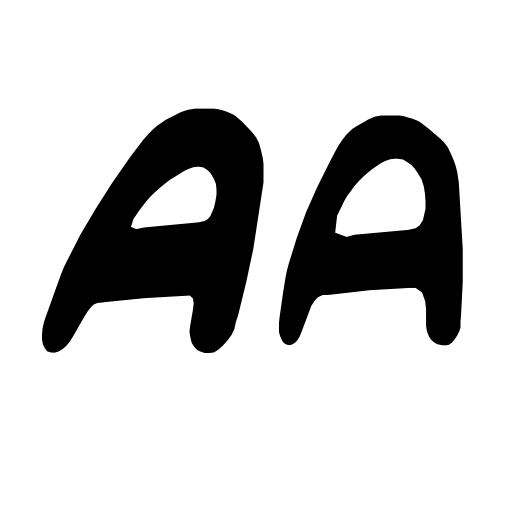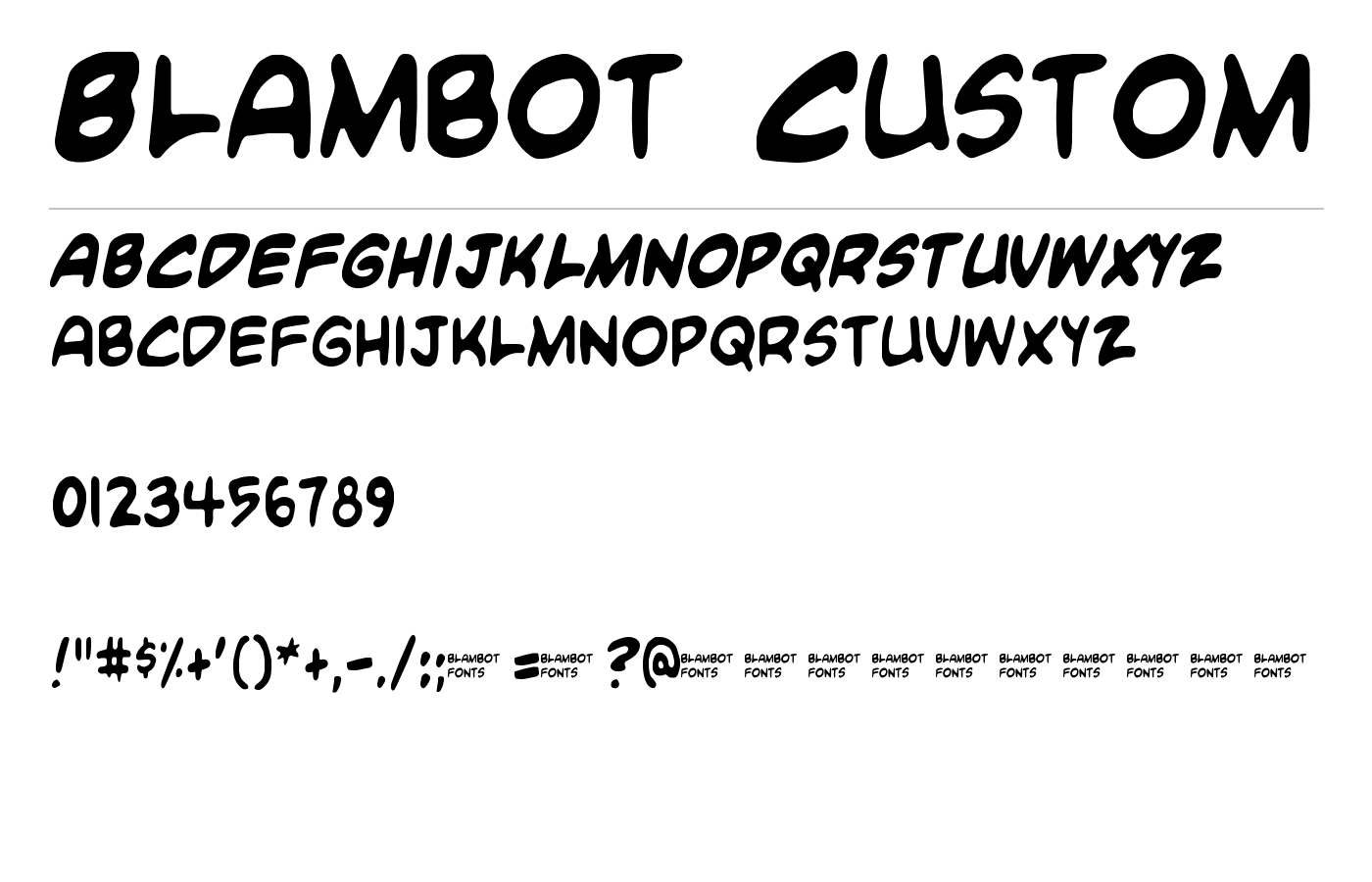
Blambot Custom Font is a bold, playful sans serif with a hand-drawn, comic-inspired feel. Its irregular shapes and lively strokes give it a casual, friendly personality that works great for fun, informal designs like graphic novels, children’s books, or entertainment branding. This font’s strong presence and unique character make it ideal for eye-catching headlines and logos that want to convey creativity and approachability.
Blambot Custom Font
About Blambot Custom Font